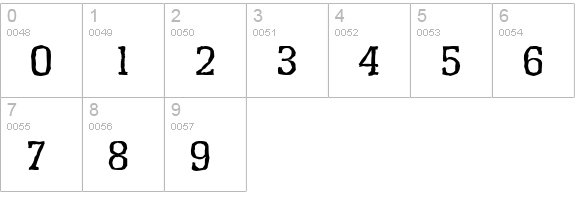
EnschedeAntique-Regular Font Details
EnschedeAntique-Regular is the standard, neutral variant in the EnschedeAntique typeface family \xE2\x80\x94 well suited to general body text, paragraphs, and standard typographic work.
EnschedeAntique-Regular is a timeless and elegant font that exudes sophistication and charm. With its classic serif style and graceful curves, this font is perfect for adding a touch of vintage flair to any project. Whether you are designing invitations, logos, or other creative works, EnschedeAntique-Regular is sure to make a statement. What sets EnschedeAntique-Regular apart is not only its beauty but also its accessibility. This exquisite font is available for free download at FontsMarket.com, making it easy for designers and creatives to incorporate this stunning typeface into their work without any cost. Embrace the timeless appeal of EnschedeAntique-Regular and elevate your designs with its classic elegance.